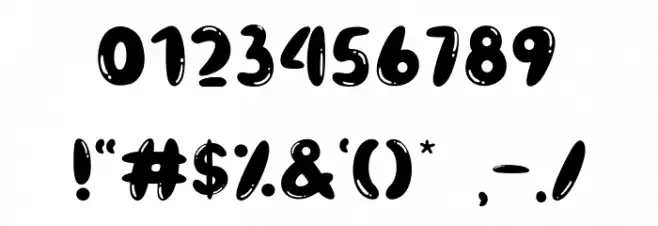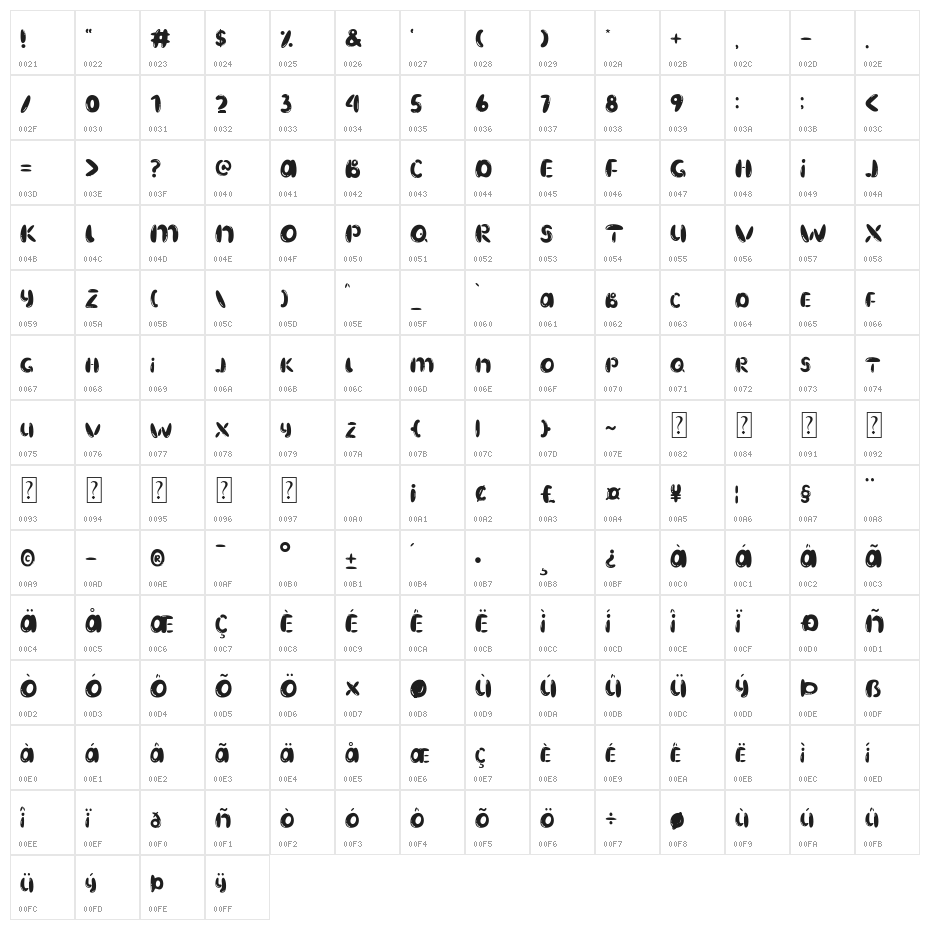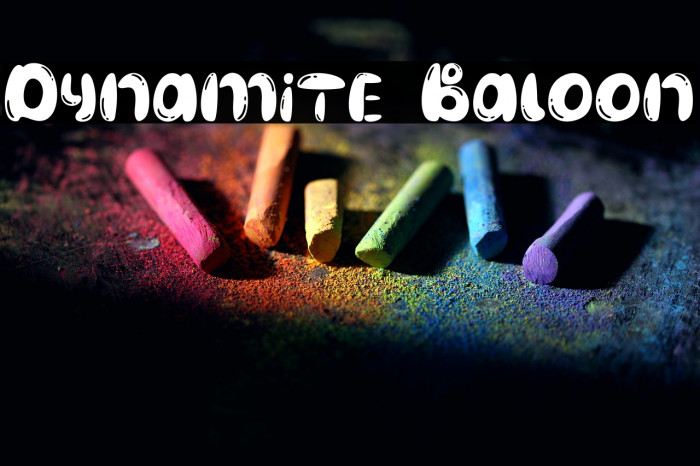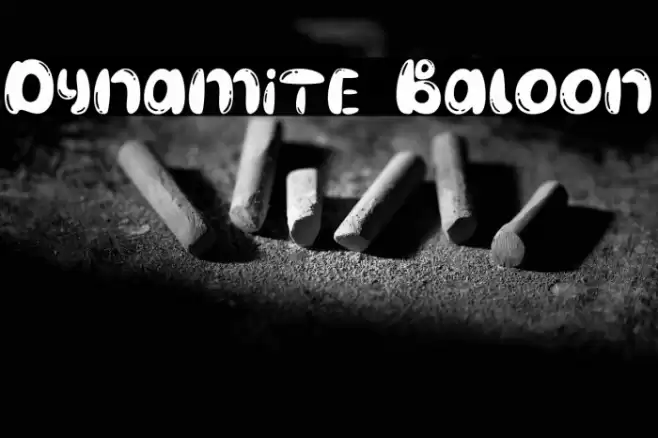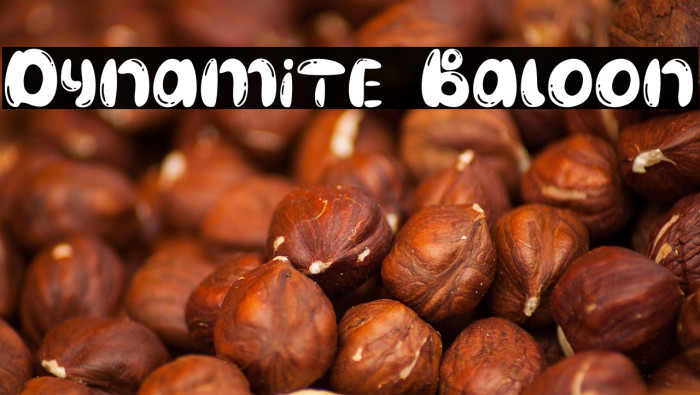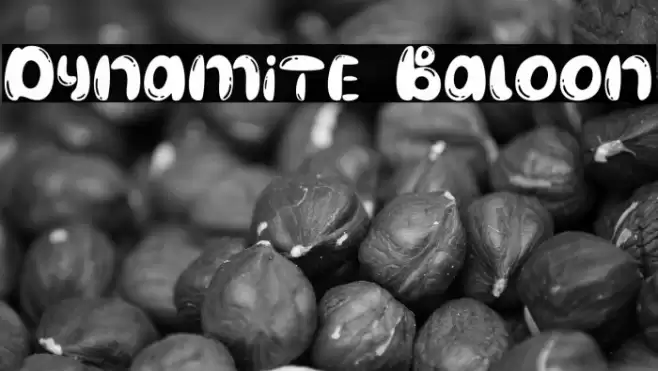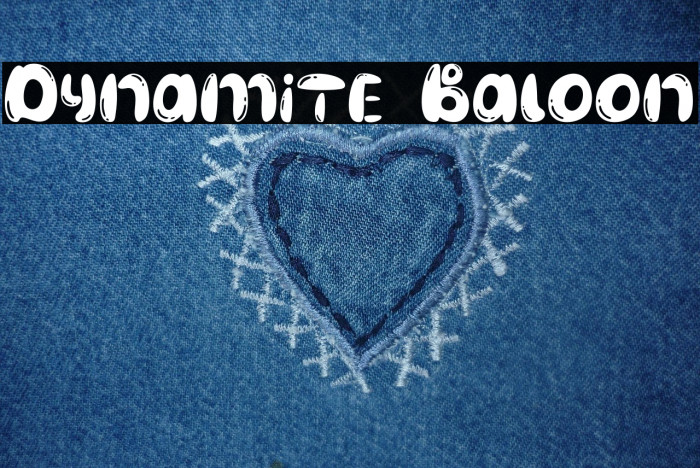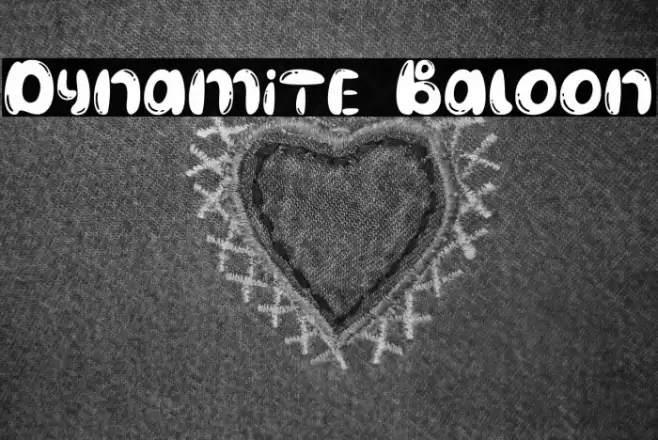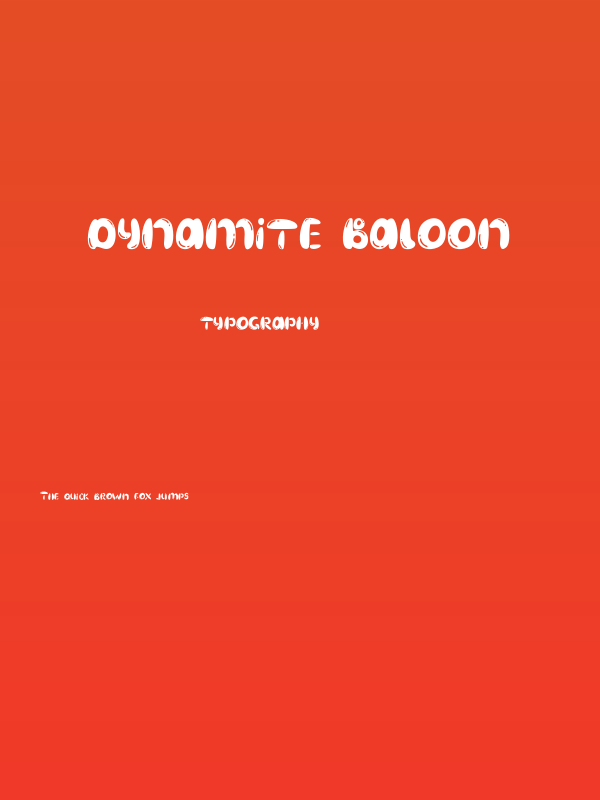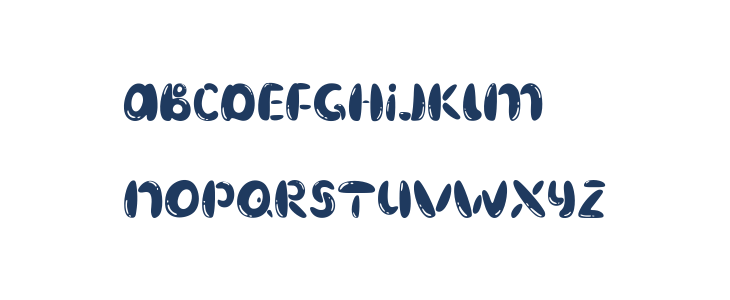
Dynamite Baloon Font
Dynamite Baloon Description
This playful and bold font features characters that resemble inflated balloons, giving it a fun and whimsical appearance. The letters are rounded and have a glossy effect, creating a sense of depth and volume. The font is highly decorative, with each character exhibiting a unique, bubbly style that is consistent throughout the alphabet. The numbers and special characters maintain the same playful aesthetic, making it suitable for creative and informal designs. Its distinctive style is eye-catching and perfect for projects that aim to convey a sense of joy and celebration.
| Proposed Projects | Ideal for children's party invitations, playful branding, festive posters, and creative social media graphics. |